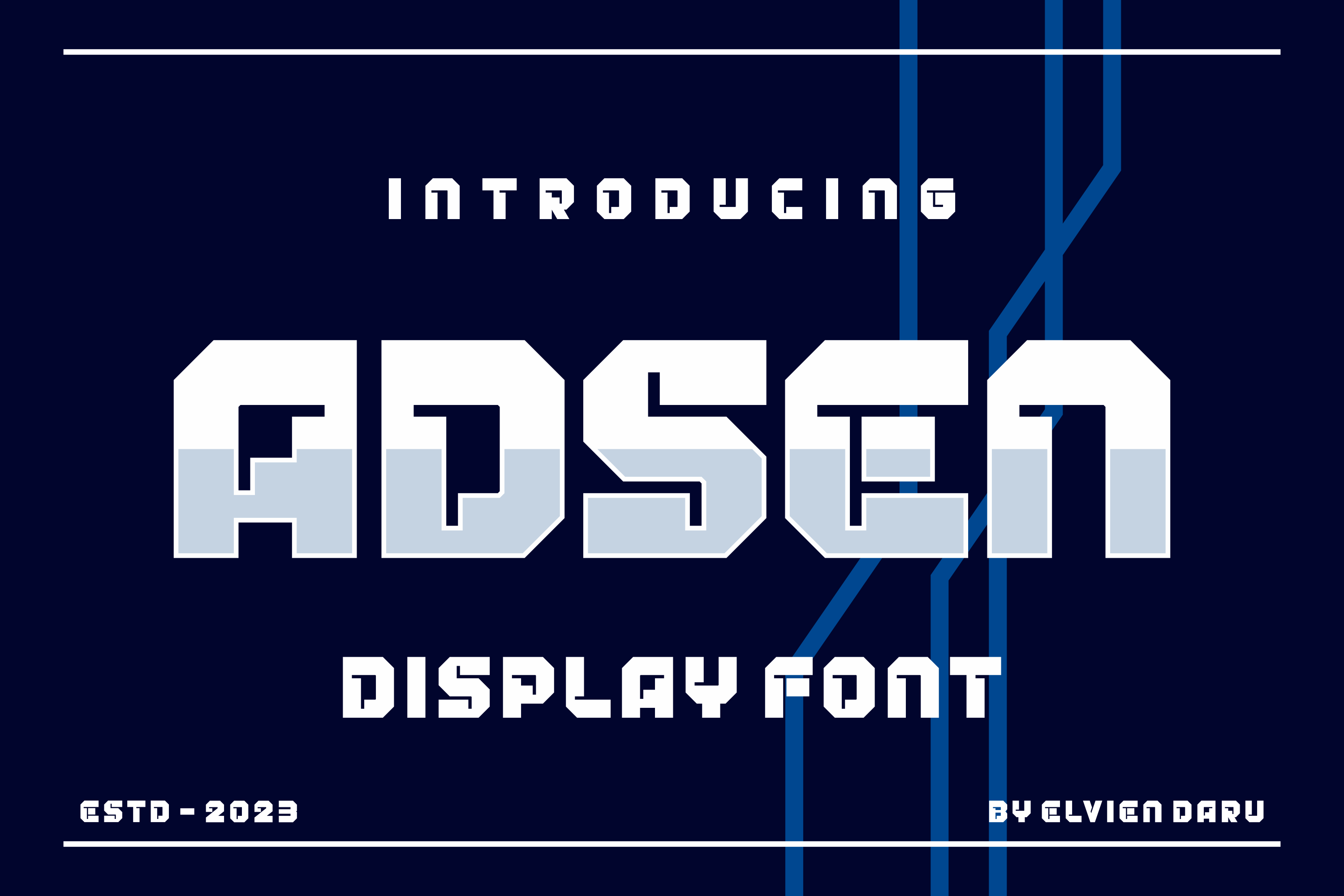
Adsen Slab Serif Font
Perfectly suited on print/screen. it’s perfect for Branding, name card, poster, logo, magazine, cover, banner, t-shirt and headers, or even large-scale artwork.